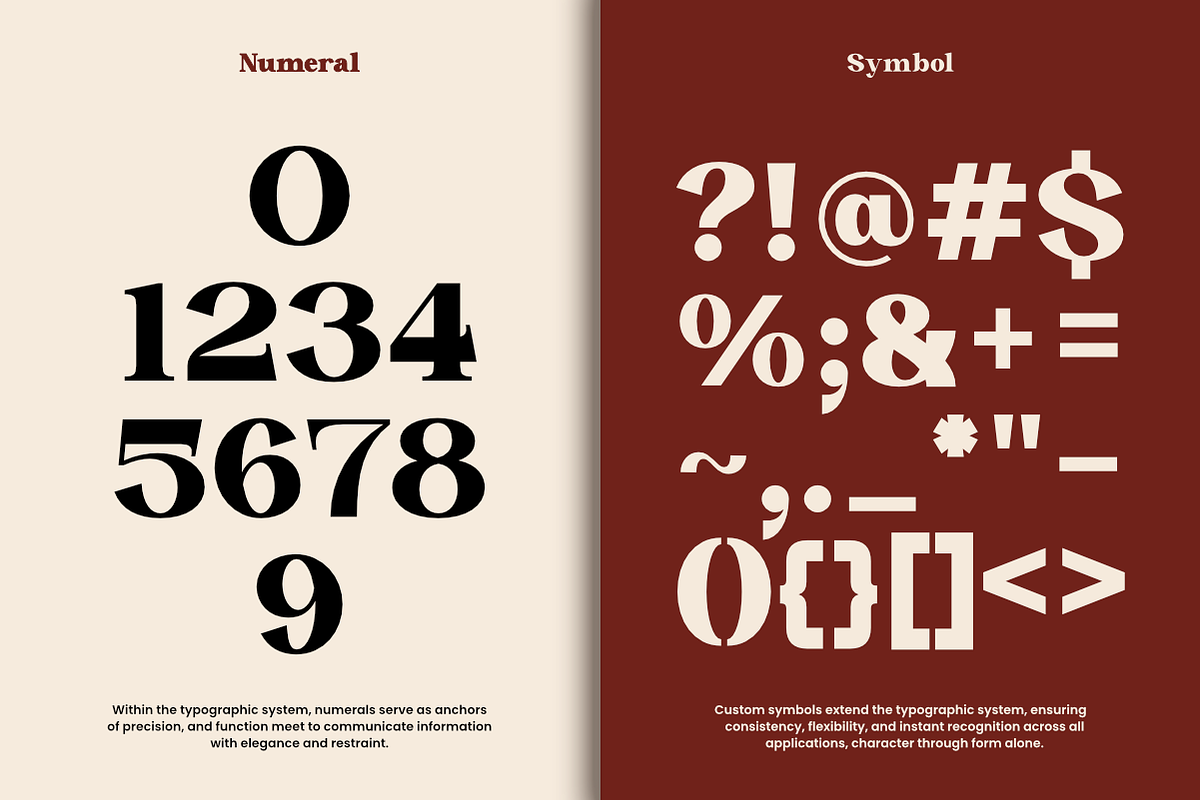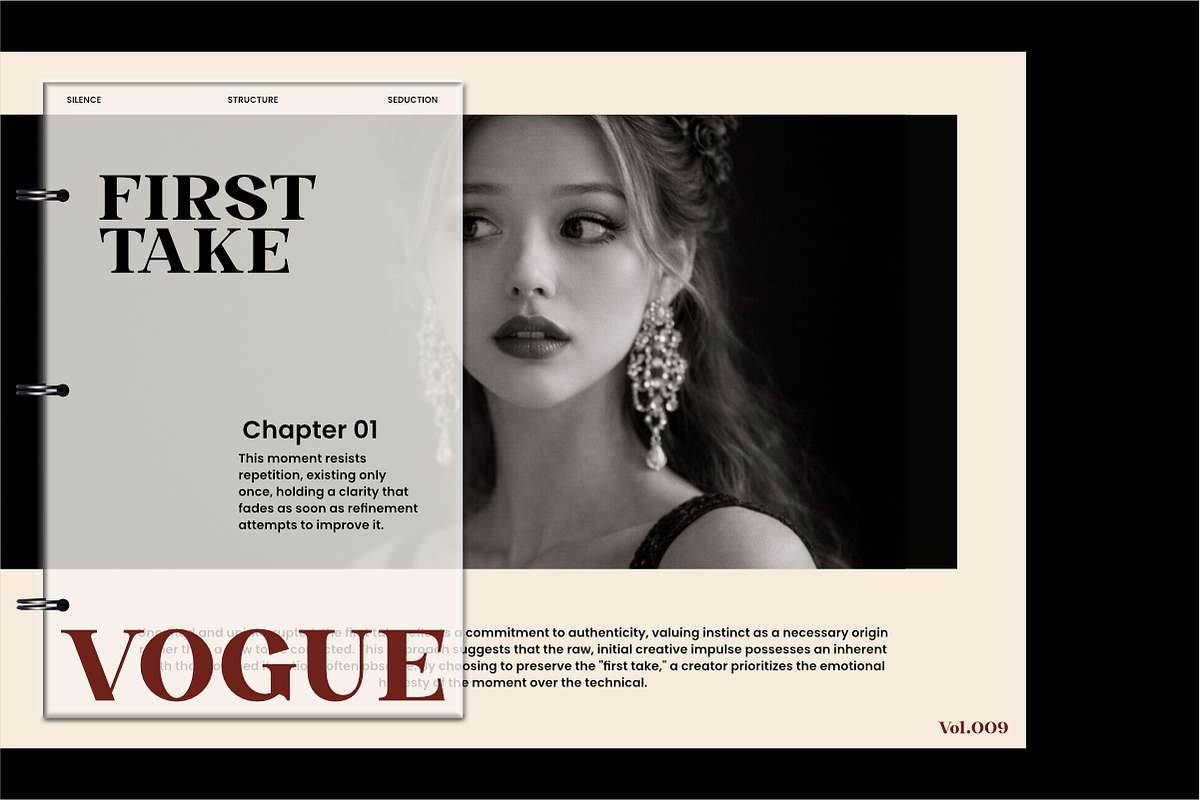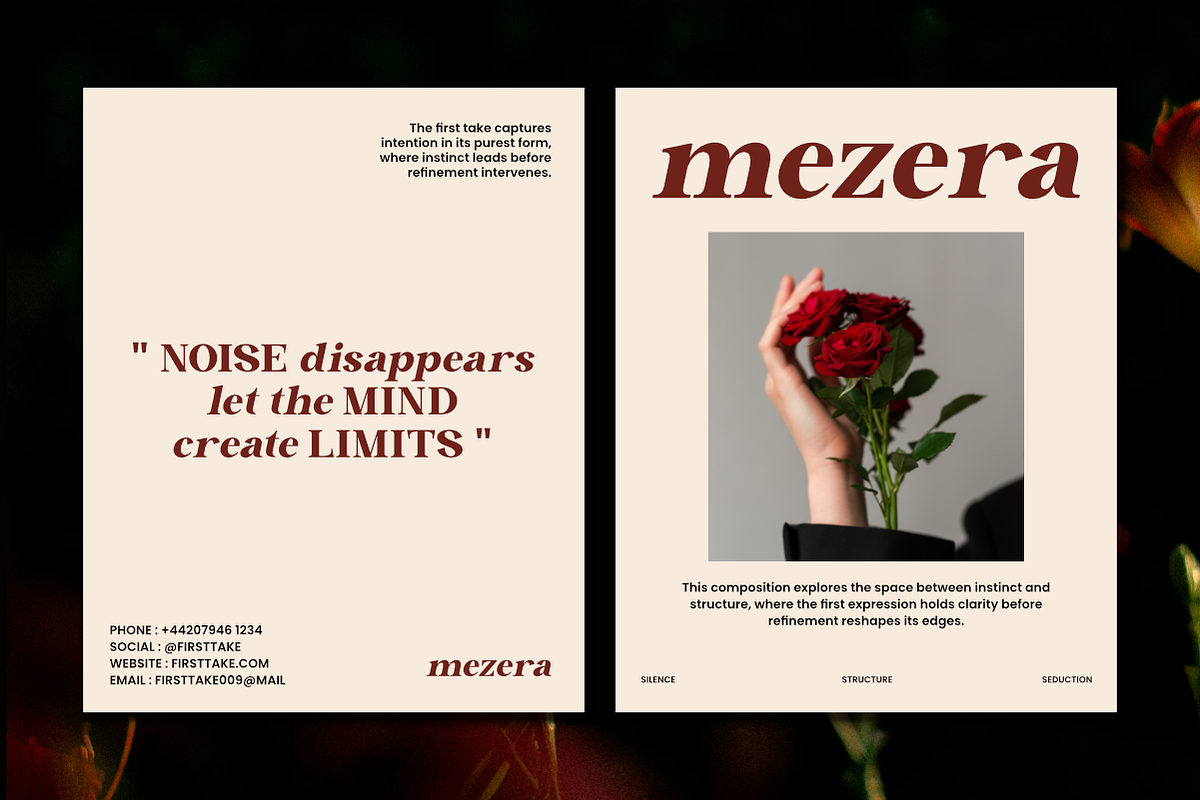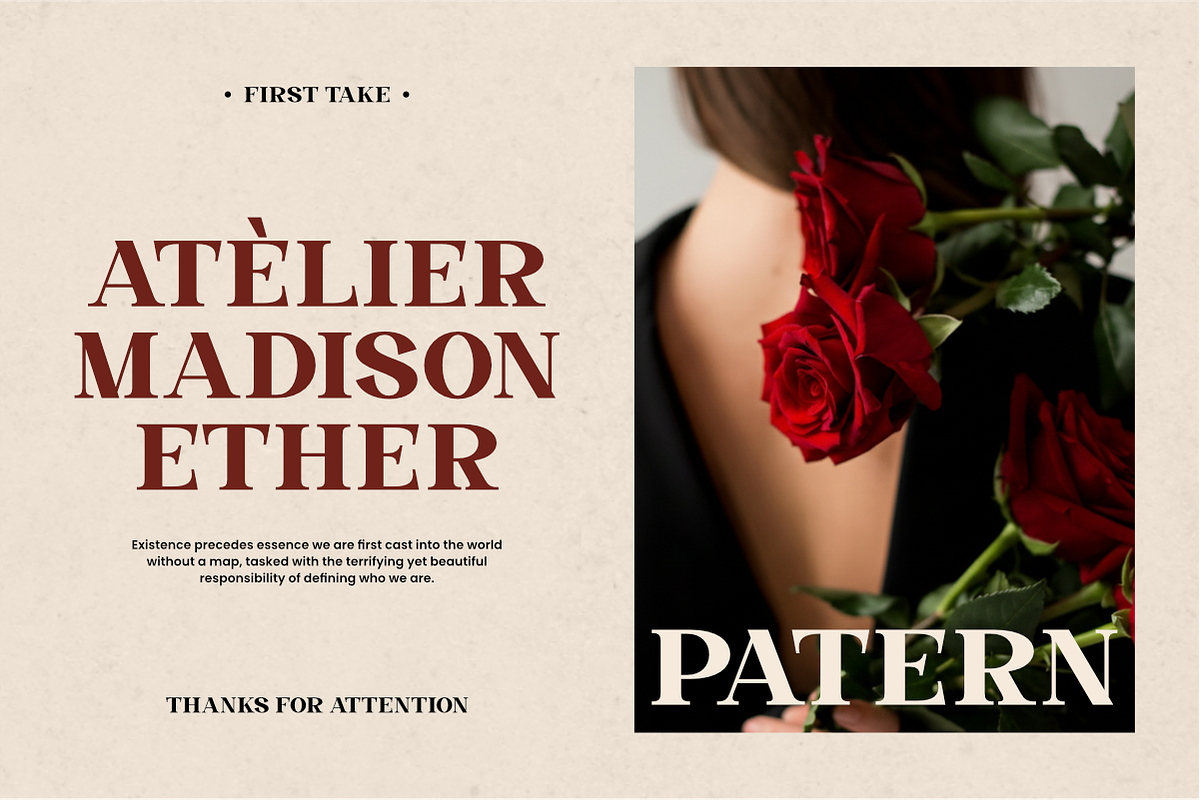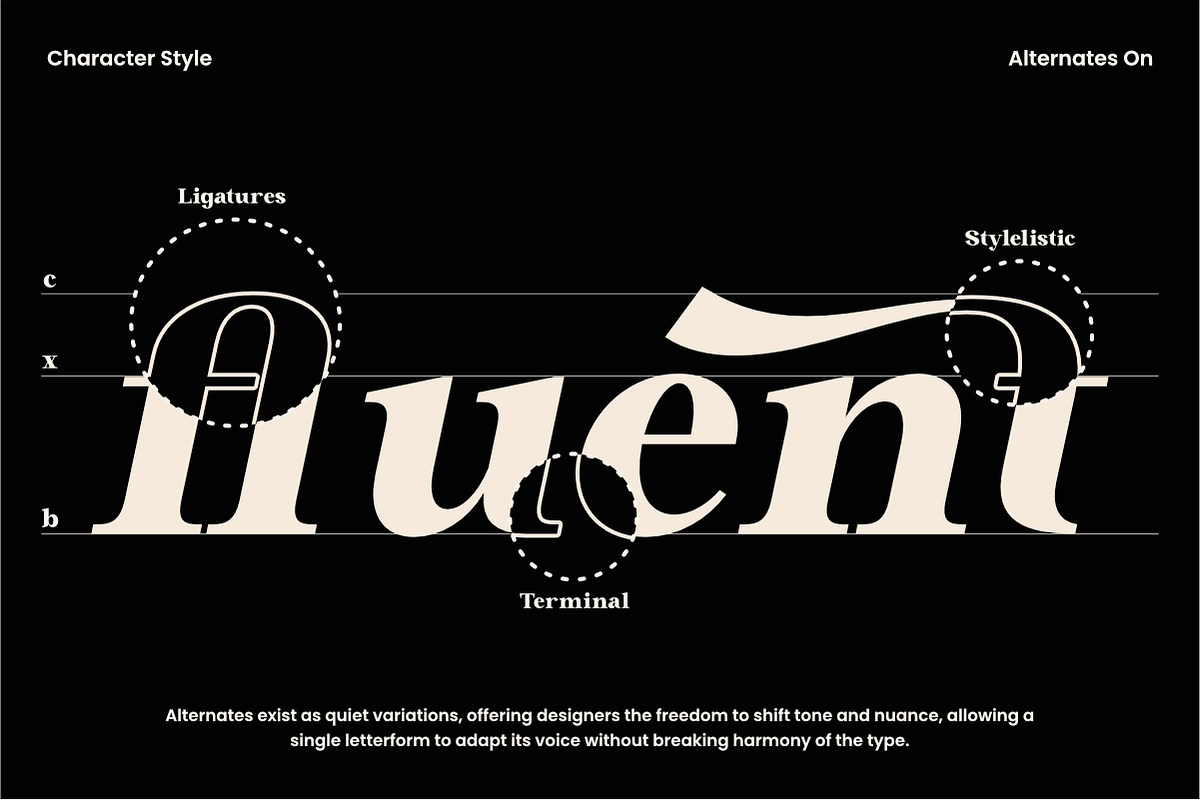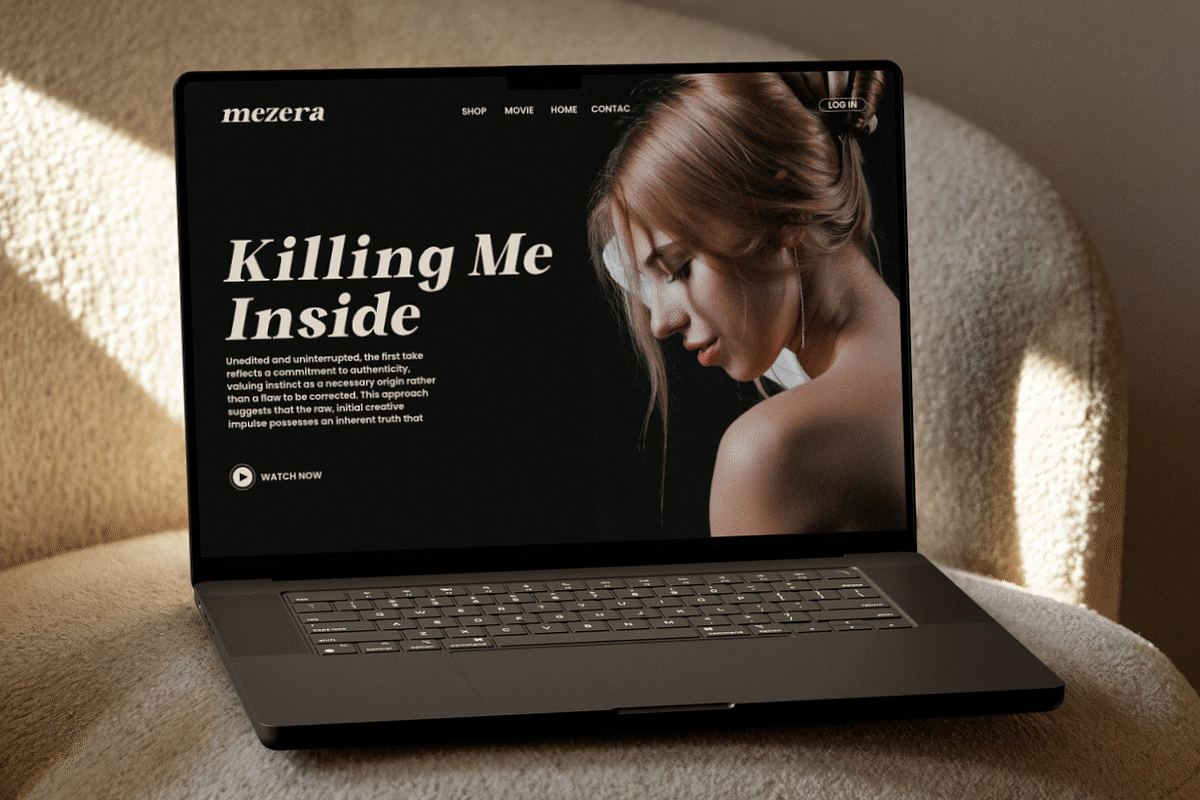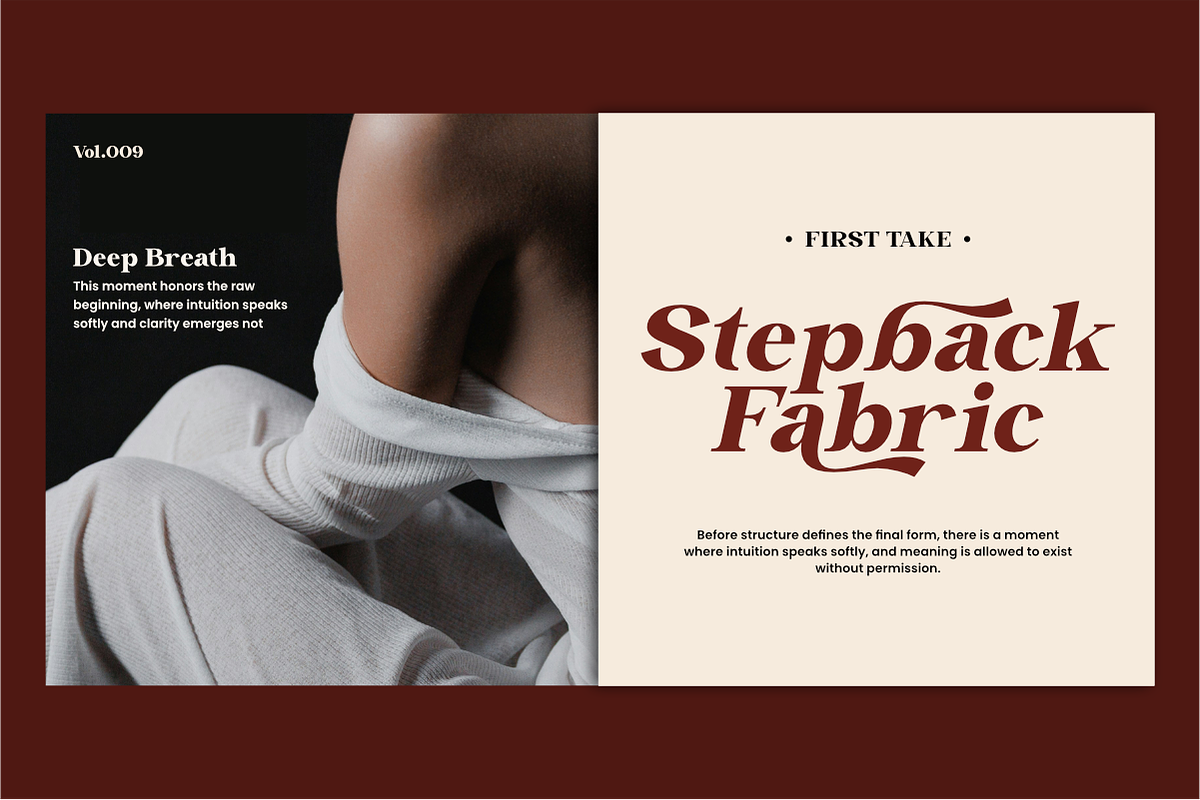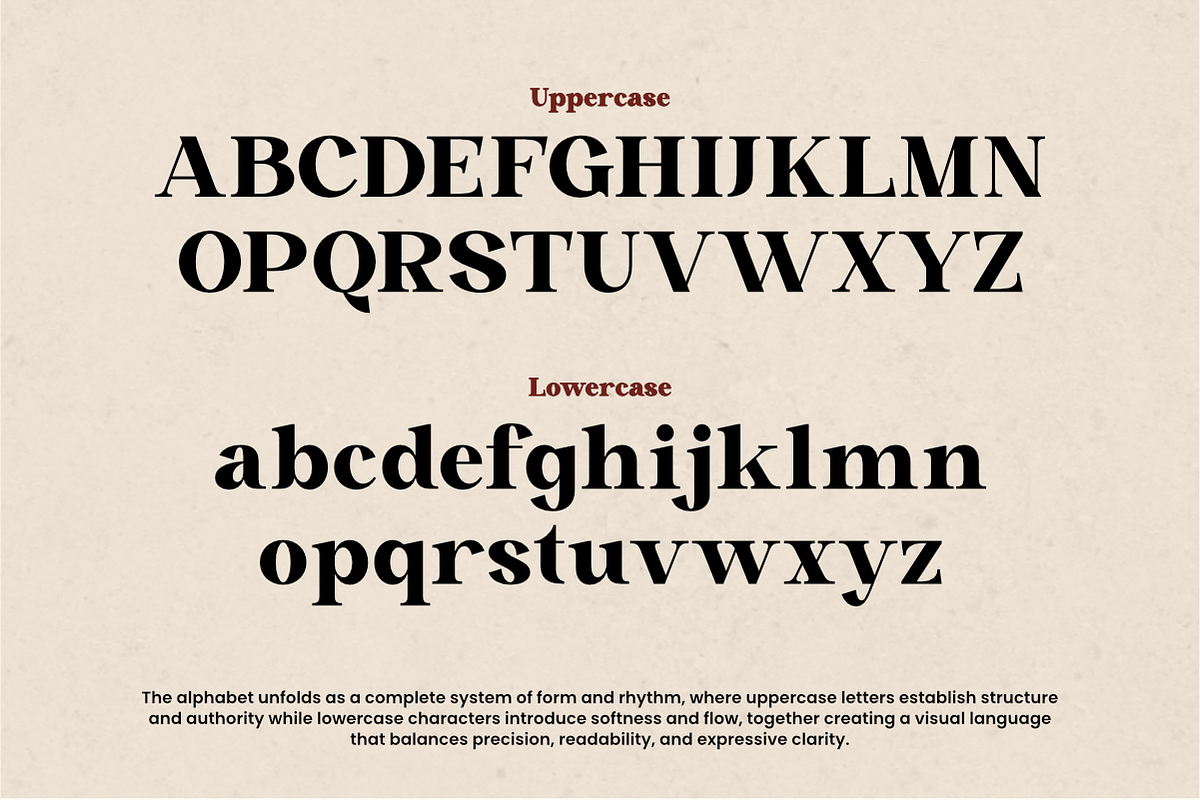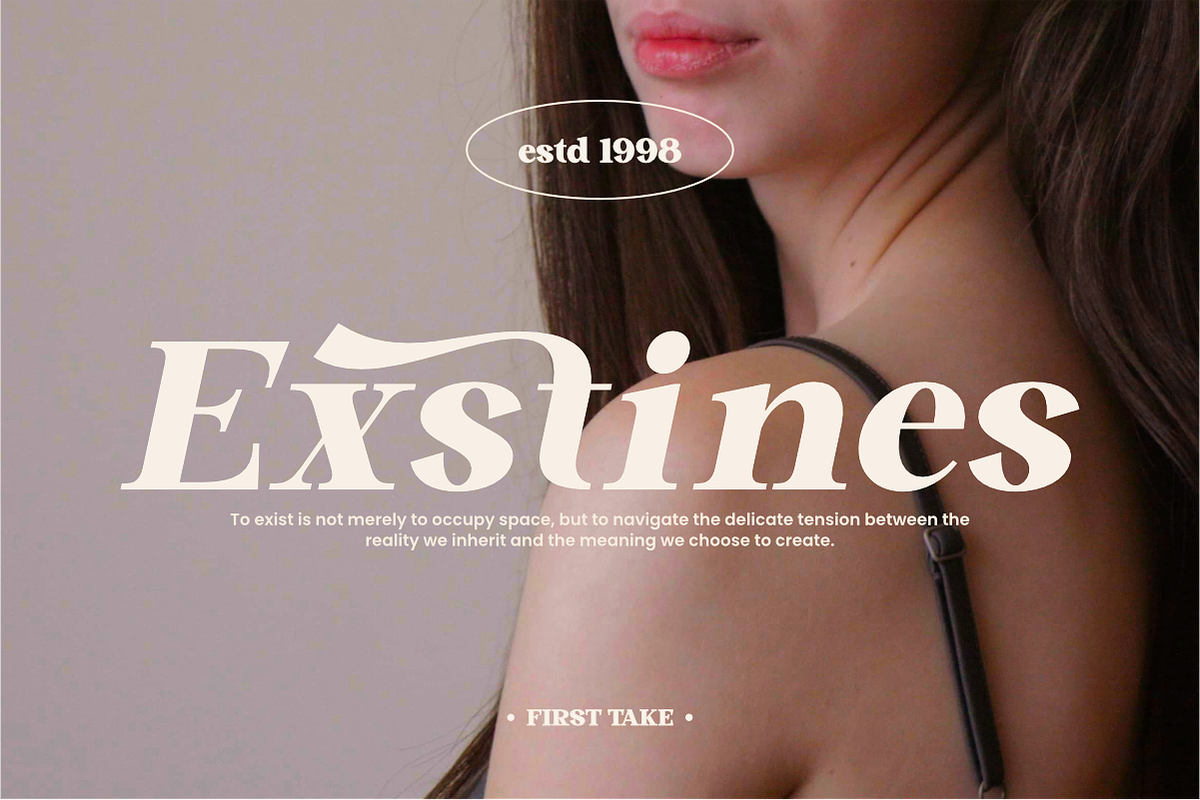
Zeist Qisofay - Modern Luxury Serif
Zeist Qisofay — Modern Elegant Font is a refined display typeface designed for sophisticated visual identity and contemporary elegance.
With graceful curves, refined serif details, and expressive letterforms, Zeist Qisofay delivers an elegant typographic voice with a modern sensibility. Its balanced contrast and decorative flow create a visually rich appearance without overwhelming readability.
Designed to emphasize elegance and character, this typeface combines classic serif foundations with modern styling, making it suitable for branding projects that require a stylish and expressive typographic presence.
Thoughtful proportions and elegant detailing allow Zeist Qisofay to adapt beautifully across premium design contexts. Whether used for brand identities, editorial headlines, fashion graphics, or lifestyle-oriented visuals, this typeface adds refinement and modern charm to contemporary design projects.